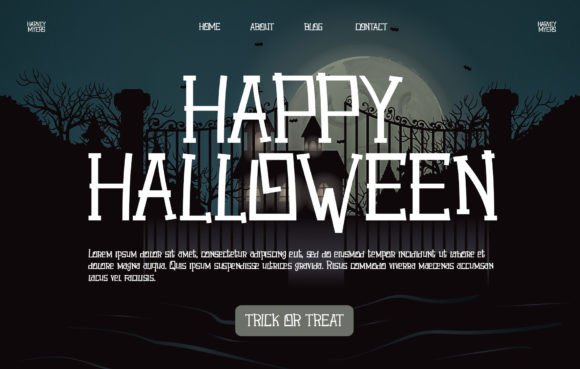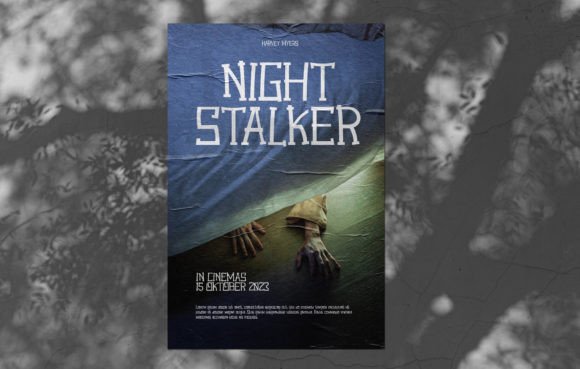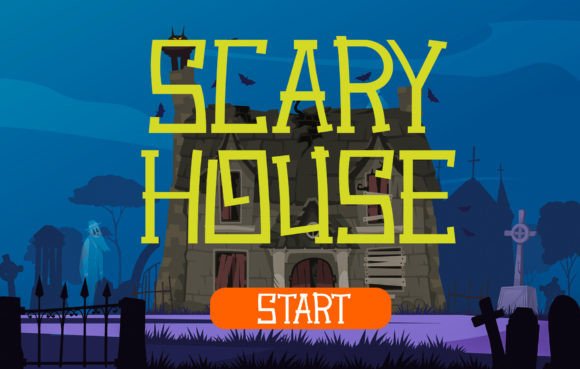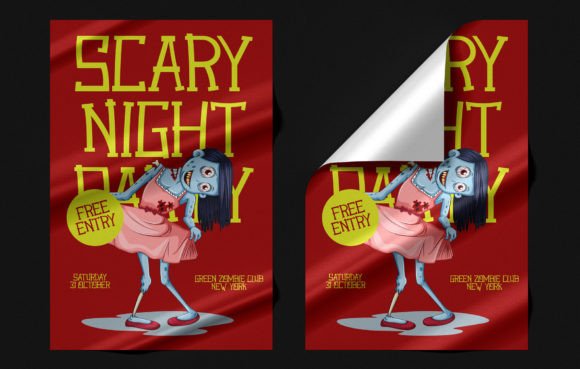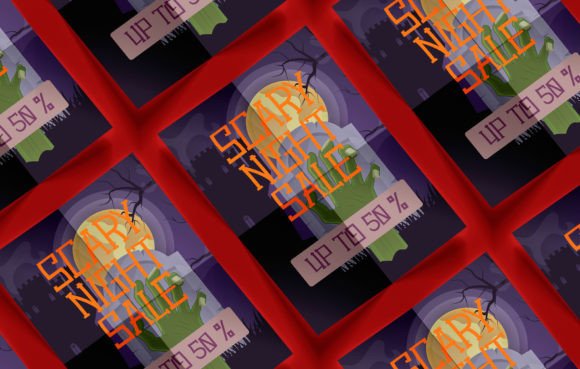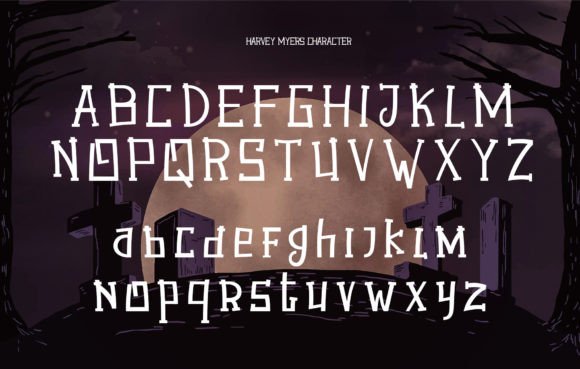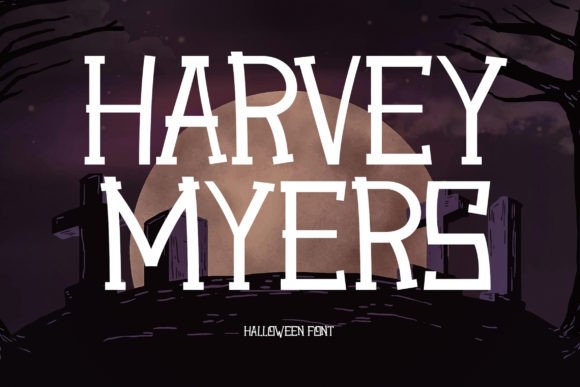
Introducing Harvey Myers Font: The Perfect Addition to Your Halloween Party
Are you looking for a font that embodies the spooky spirit of Halloween? Look no further than Harvey Myers Font, a bold and eerie typeface designed to complement your Halloween party decorations. With its strong character and scary, horror, and fear-inspired aesthetic, this font is perfect for creating eye-catching Halloween posters and flyers.
The Inspiration Behind Harvey Myers Font
Harvey Myers Font was created with the intention of capturing the essence of Halloween. The font’s design is inspired by the classic horror movies and haunted houses that are synonymous with the holiday. The result is a font that exudes a sense of eeriness and foreboding, making it perfect for any Halloween-themed project.
Key Features of Harvey Myers Font
So, what makes Harvey Myers Font so special? Here are a few key features that set it apart:
- Strong Character: Harvey Myers Font has a bold and rugged appearance that demands attention. Its strong character makes it perfect for headlines and titles.
- Scary, Horror, and Fear-Inspired: The font’s design is inspired by the darker side of Halloween, making it perfect for creating spooky and eerie designs.
- Perfect for Halloween Posters and Flyers: Whether you’re creating posters or flyers for a Halloween party, Harvey Myers Font is the perfect choice. Its bold and eye-catching design is sure to grab attention.
Using Harvey Myers Font in Your Designs
Harvey Myers Font is incredibly versatile and can be used in a variety of design projects. Here are a few ideas to get you started:
- Halloween Party Posters: Create eye-catching posters to advertise your Halloween party. Use Harvey Myers Font to add a spooky touch to your design.
- Halloween Flyers: Design flyers to distribute at local events or in public areas. Harvey Myers Font is perfect for creating bold and attention-grabbing headlines.
- Social Media Graphics: Use Harvey Myers Font to create spooky social media graphics to promote your Halloween party or event.
Tips for Getting the Most Out of Harvey Myers Font
Here are a few tips for getting the most out of Harvey Myers Font:
- Use it Sparingly: While Harvey Myers Font is bold and eye-catching, it can be overwhelming if used excessively. Use it sparingly to add emphasis to your design.
- Pair it with Other Fonts: Harvey Myers Font pairs well with other fonts, such as sans-serif fonts. Experiment with different font combinations to find the perfect look for your design.
- Experiment with Colors: Harvey Myers Font looks great in bold and bright colors. Experiment with different colors to find the perfect look for your design.
Harvey Myers Font is a bold and eerie typeface that’s perfect for adding a spooky touch to your Halloween party decorations. With its strong character and scary, horror, and fear-inspired aesthetic, this font is sure to grab attention. Whether you’re a designer or crafter, Harvey Myers Font is a great addition to your font collection.